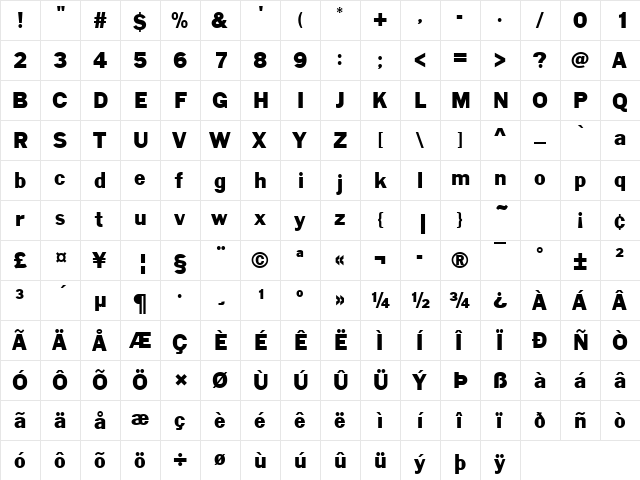
LargoD Regular Font Preview
LargoD Regular
Design Context for LargoD Typeface
LargoD is a composed and adaptable typeface that performs quietly and consistently across a wide range of design contexts.